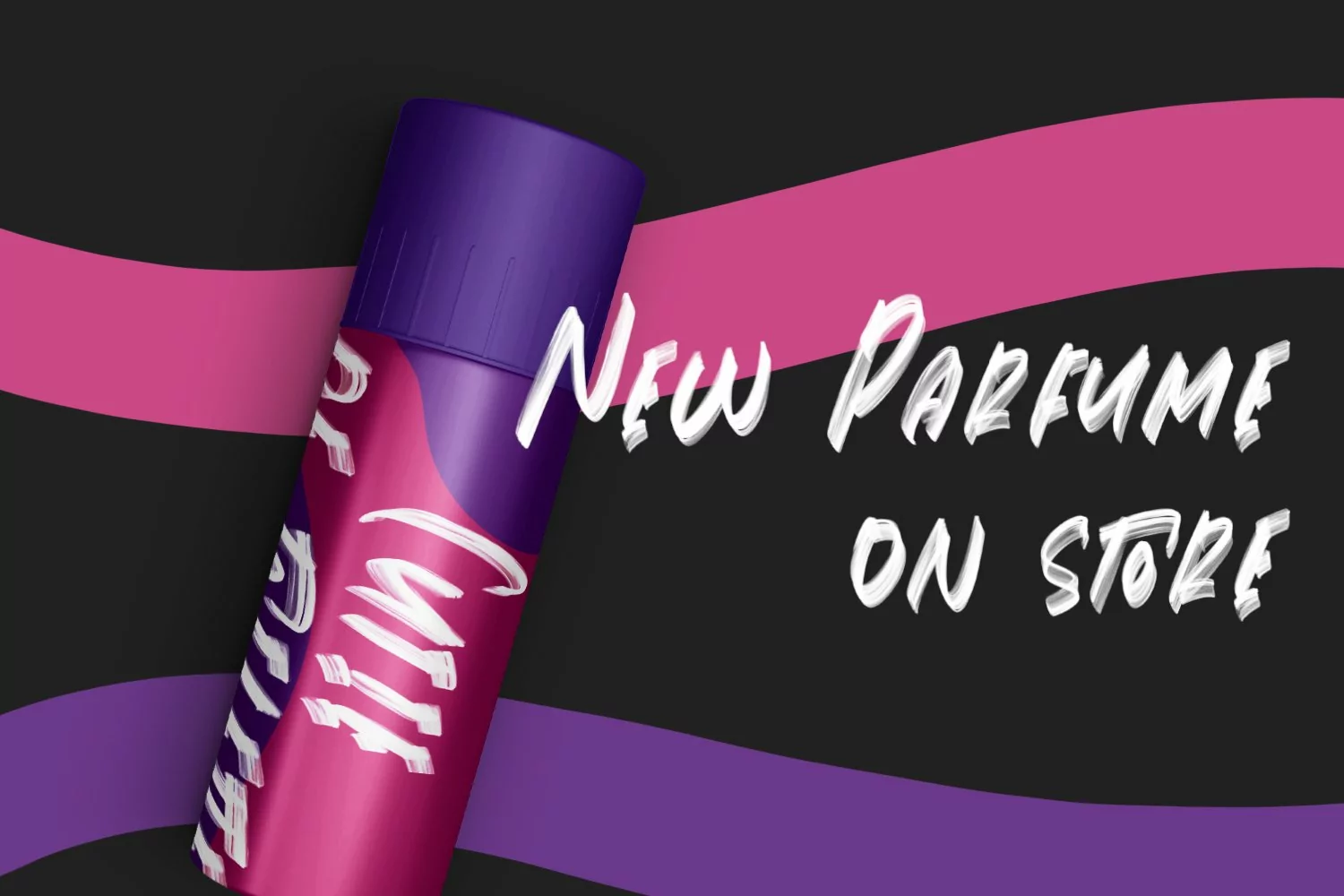
Storefront - Texture SVG Font that contain lowercase, uppercase, symbol, and also support multi language. There’s a lot ligatures in this font. This Font also comes with ligatures, alternates and many more. this font suitable for fashion, branding, catalog and other design what you want.